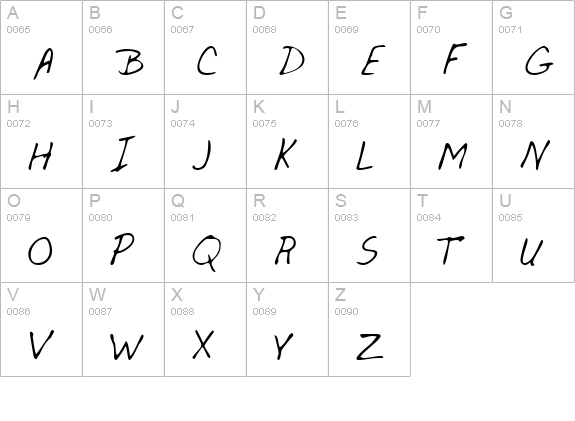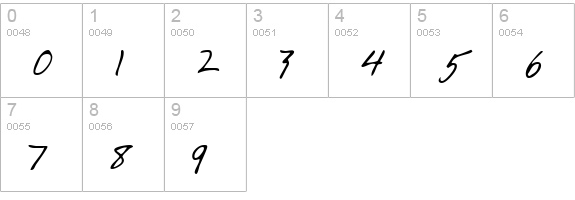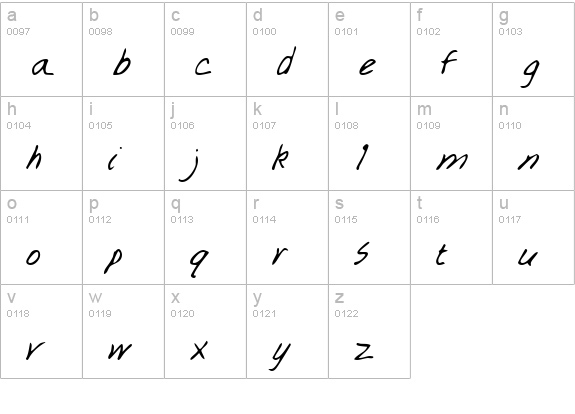
TaylorsHand Regular is the standard, neutral variant in the TaylorsHand typeface family \xE2\x80\x94 well suited to general body text, paragraphs, and standard typographic work.
TaylorsHand Regular is a charming and versatile font that exudes a sense of authenticity and handmade warmth. Its carefully hand-drawn letterforms capture the essence of a skilled craftsman's touch, making it perfect for a wide range of design projects. This font offers a unique blend of elegance and playfulness, making it suitable for both formal and casual applications. Its slightly imperfect lines and organic shapes give it a delightful sense of character, adding a touch of personality to any design. TaylorsHand Regular is freely available to download at FontsMarket.com, making it accessible to all designers and enthusiasts. With just a few clicks, you can enhance your projects with this delightful font, without any cost or hassle. Whether you're designing a wedding invitation, a logo, or a poster, TaylorsHand Regular will effortlessly elevate your work to new heights. Its legibility and timeless appeal ensure that it will remain a trusted choice for years to come. Embrace the charm and versatility of TaylorsHand Regular, and let your creativity flow freely with this exceptional font. Download it now at FontsMarket.com and unlock a world of design possibilities.